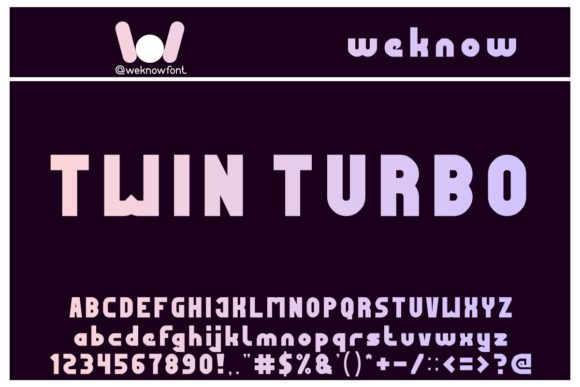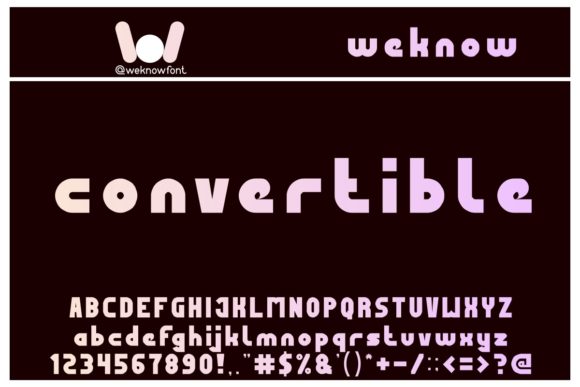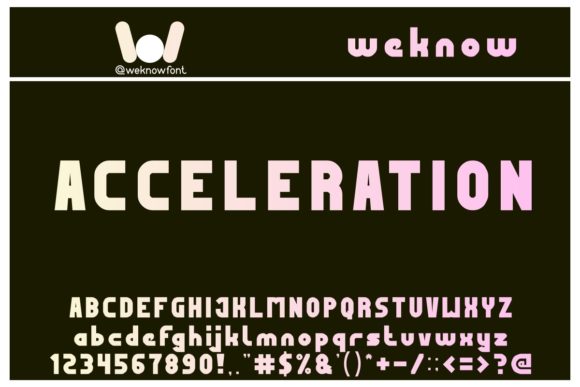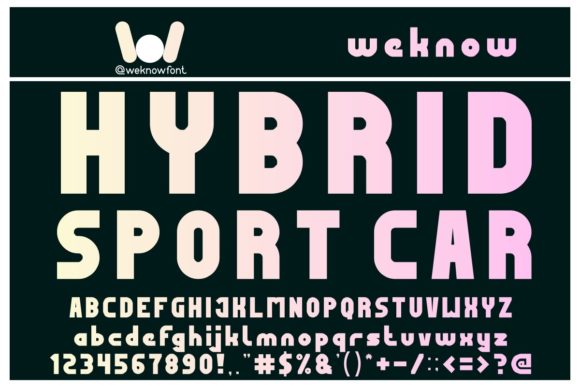
Introduction to Most Famous Font Font
Fonts play a crucial role in design, and the Most Famous Font font is a typeface that brings both character and versatility to any project. Whether you’re working on a branding project, a website, or a print design, the Most Famous Font font offers a unique style that can elevate your work.
Most Famous is a modern font with a design that reflects the future and sophistication.
It will add a luxury spark to any design project that you wish to create .
The Most Famous Font font is more than just a typeface – it’s a design tool that helps you communicate your message with style and clarity. Its unique character set and versatile design make it suitable for a wide range of applications, from elegant invitations to bold headlines.
With its carefully crafted letterforms and balanced proportions, the Most Famous Font font ensures readability and visual appeal across all mediums.
The Most Famous Font font stands out with its unique design, exceptional readability, and versatility across various design applications.